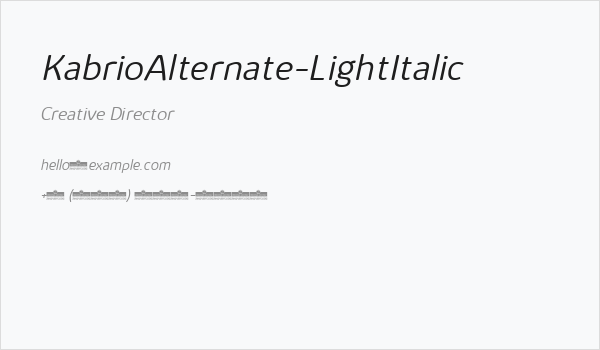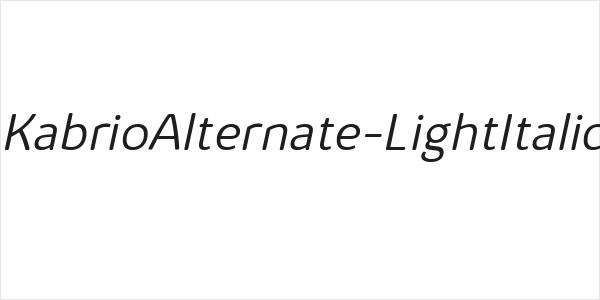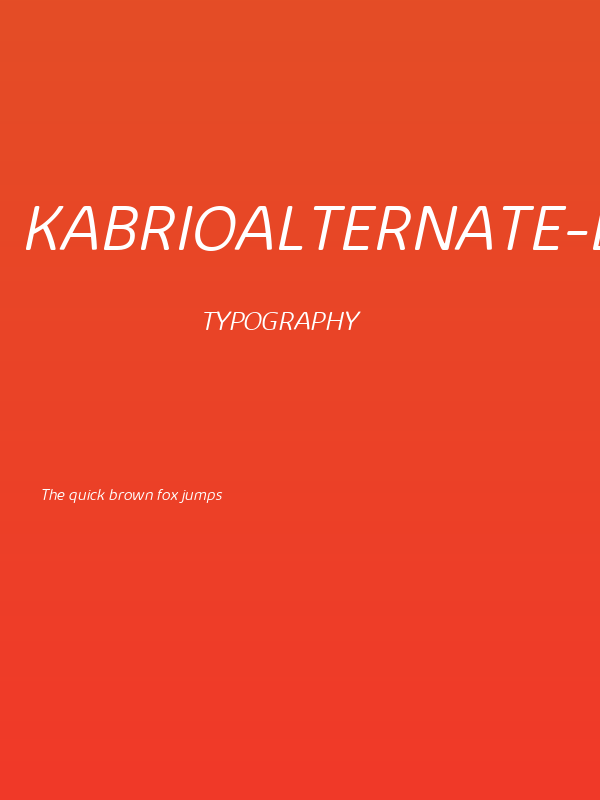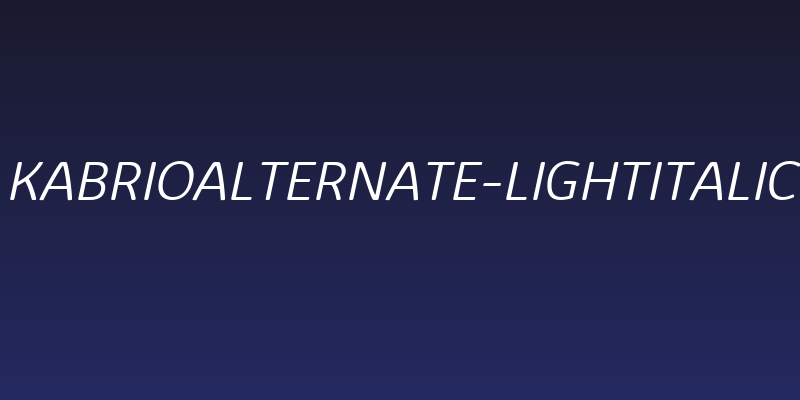
KabrioAlternate-LightItalic Font
KabrioAlternate-LightItalic Description
This font presents a sleek and modern design with a subtle italic slant, giving it a dynamic and fluid appearance. The characters are crafted with a light weight, contributing to an airy and elegant feel. The sans-serif style ensures a clean and uncluttered look, making it versatile for various applications. The character spacing is normal, allowing for easy readability while maintaining a sophisticated aesthetic. The font's low contrast in stroke thickness adds to its contemporary appeal, making it suitable for both digital and print media.
| Proposed Projects | Ideal for branding, editorial design, websites, and modern corporate communications. |